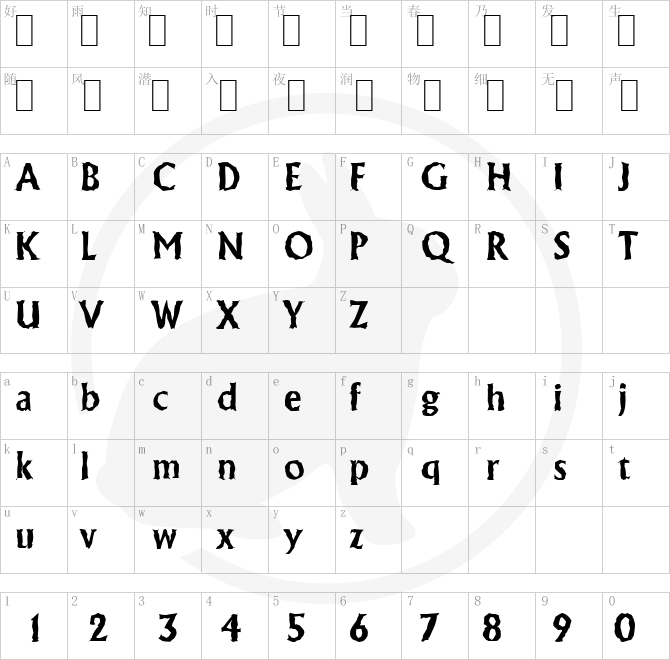
JacobBeckerRandom-Bold.ttf is a very beautiful artistic font, JacobBeckerRandom-Bold.ttf is widely used in the design and printing of various books and pictures,JacobBeckerRandom-Bold.ttf has a strong visual impact,JacobBeckerRandom-Bold.ttf is a commonly used font in newspapers, magazines and books, and is used in posters, e-commerce Poster design, store design, logo design, font design and other fields.JacobBeckerRandom-Bold.